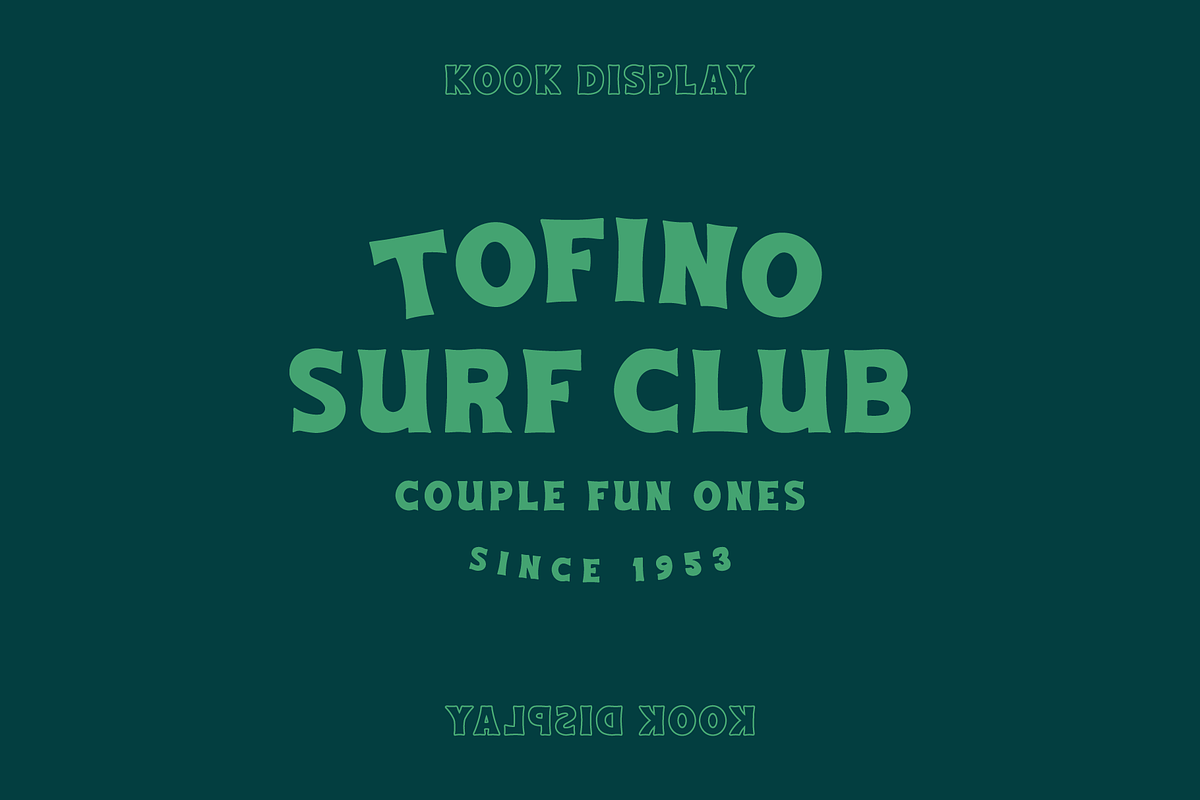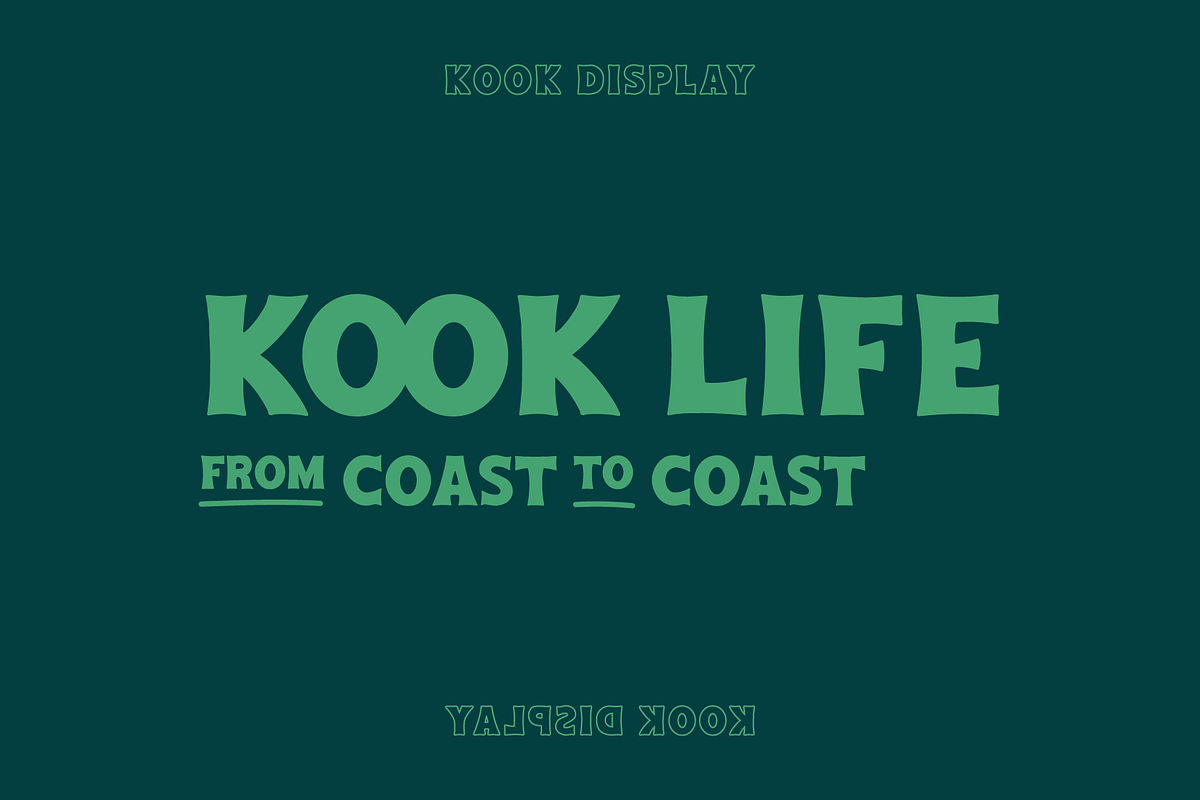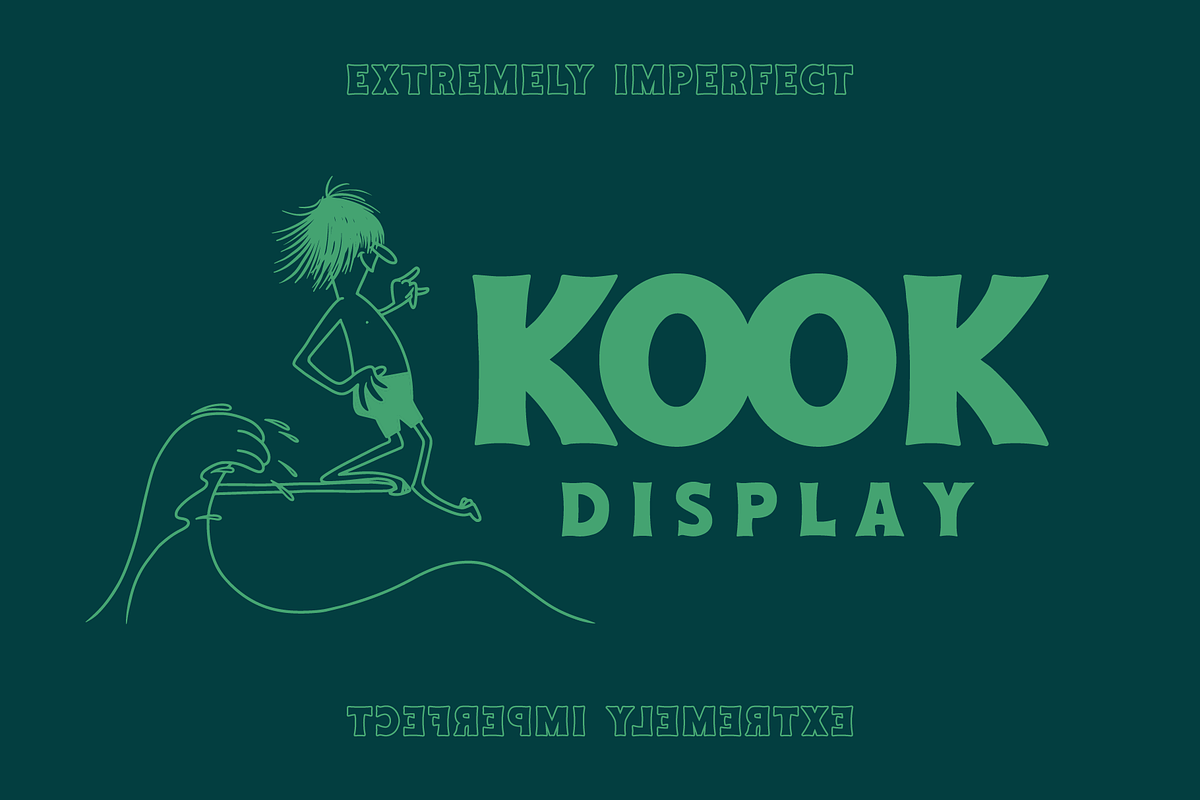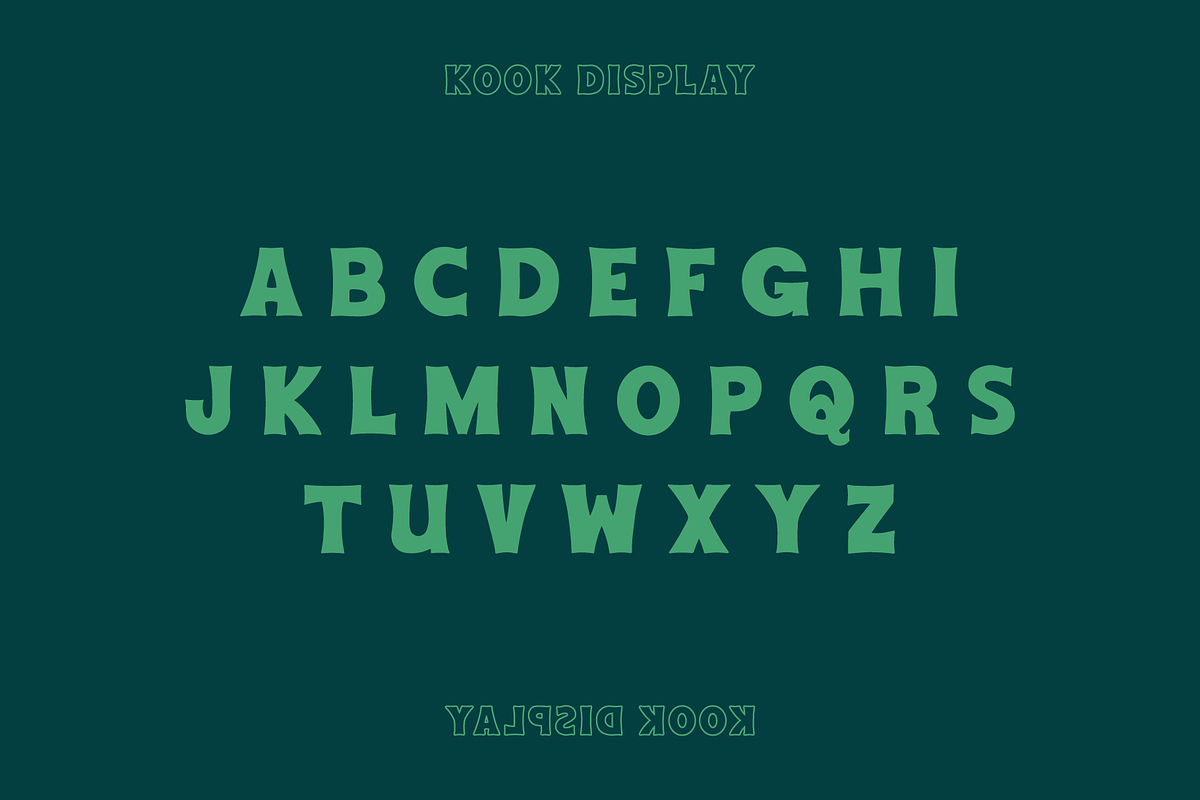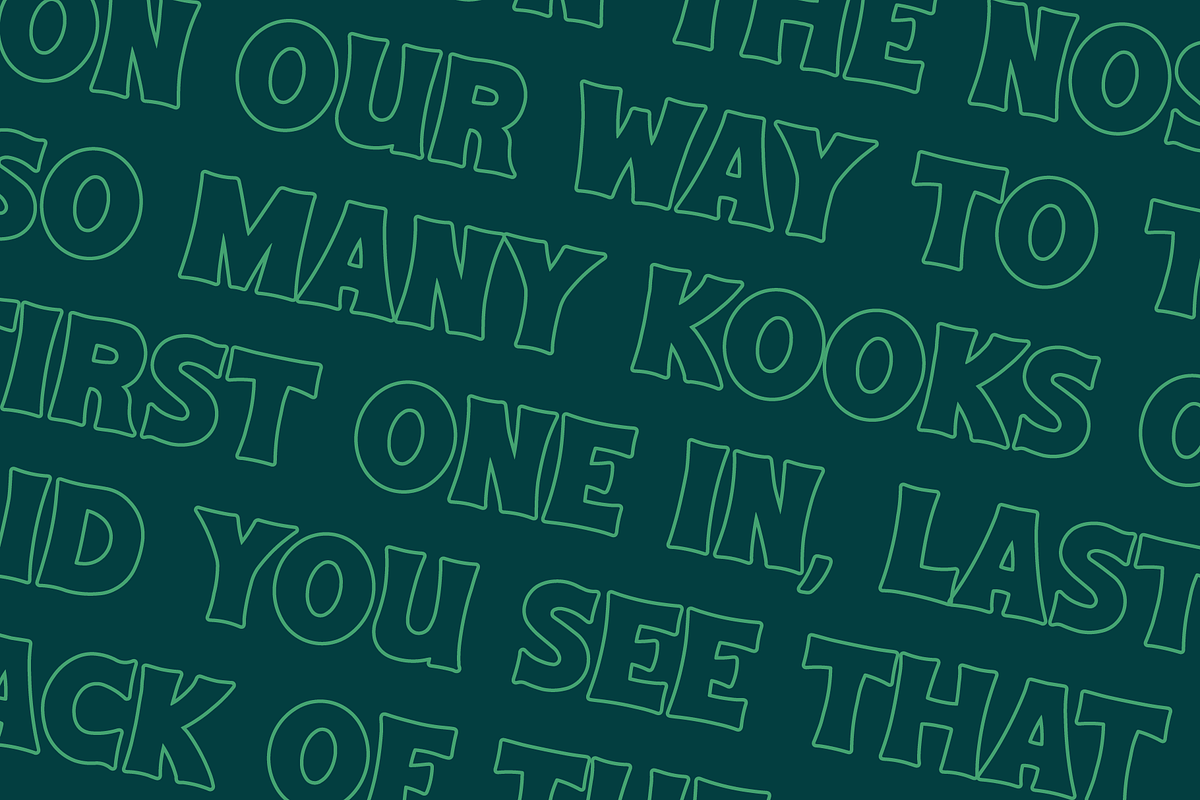
Kook Display
Kook Display is an extremely imperfect hand drawn font inspired by the west coast. An expressive font perfect for branding, logos, packaging, posters and typographic lockups.
Studio Alexander originally developed this font for a brand that, in the end, chose a different direction. Since then, we've been working to perfect the look and feel of this font to release it for all our friends to use.
*We personally love using this font with a set tracking between +50 – +100.